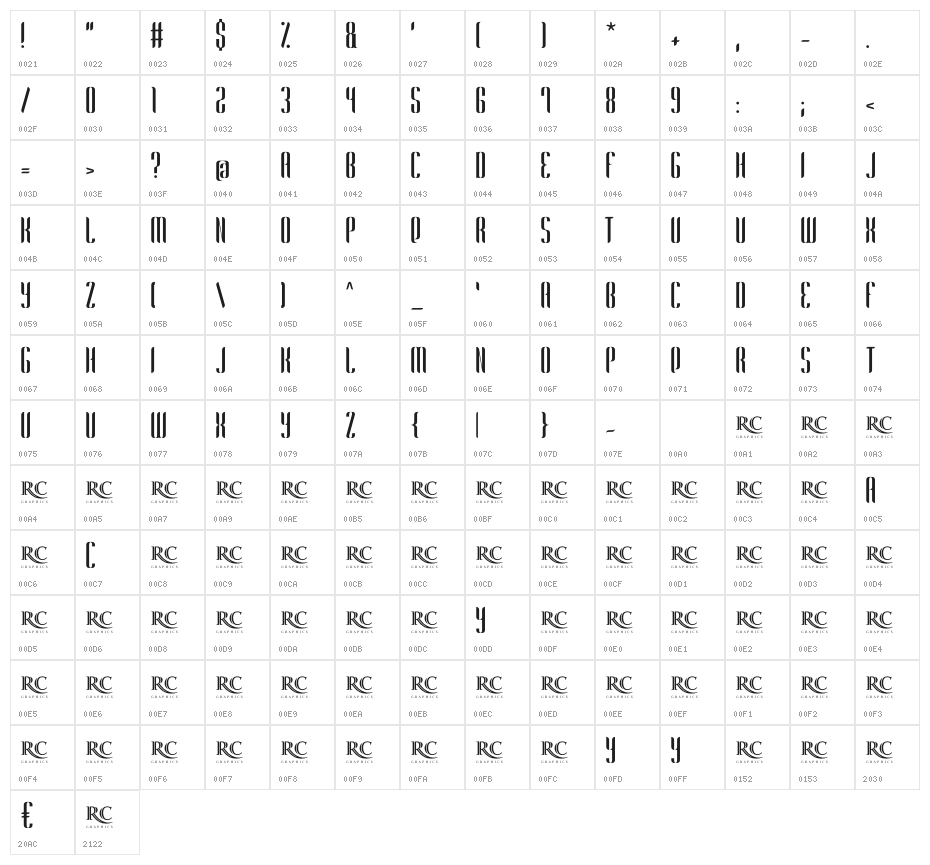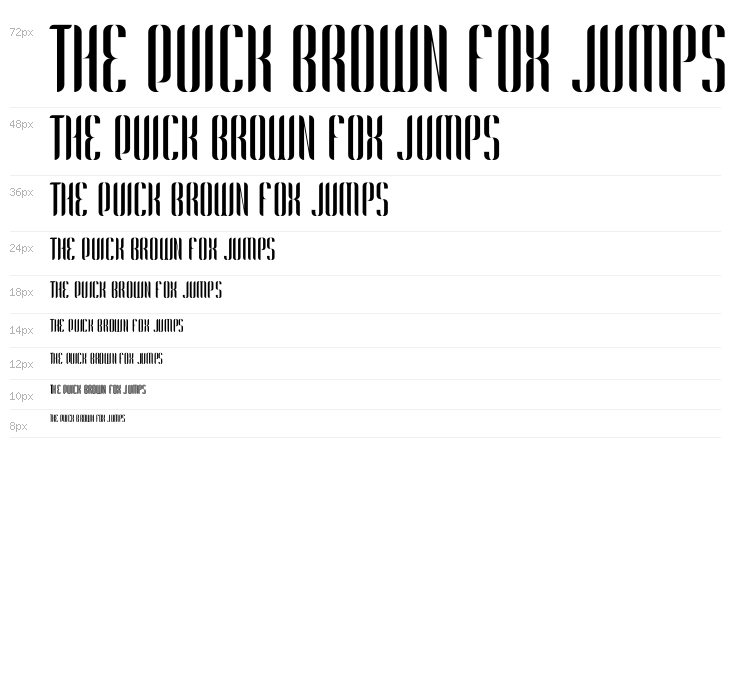
Harmonial Font
Harmonial Description
This font features a distinctive and modern design with elongated, narrow characters that exhibit a high contrast between thick and thin strokes. The uppercase letters are particularly striking, with a vertical emphasis that gives them a sleek and sophisticated appearance. The lowercase letters maintain the same stylistic elements, ensuring consistency throughout the typeface. Numbers and special characters are designed to match the overall aesthetic, making them suitable for a variety of applications. The font's unique style is both eye-catching and versatile, making it ideal for creative projects that require a bold statement.
| Proposed Projects | Ideal for branding, poster design, fashion magazines, and luxury product packaging. |